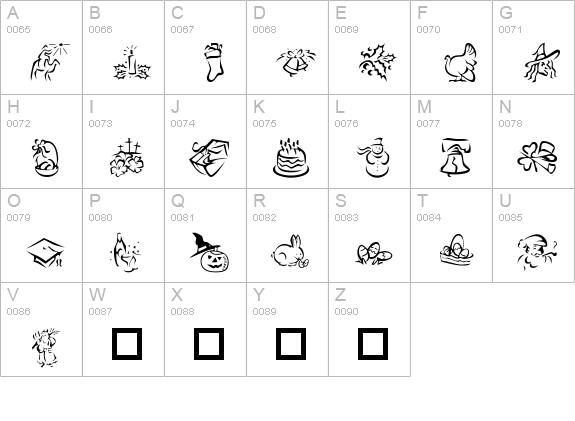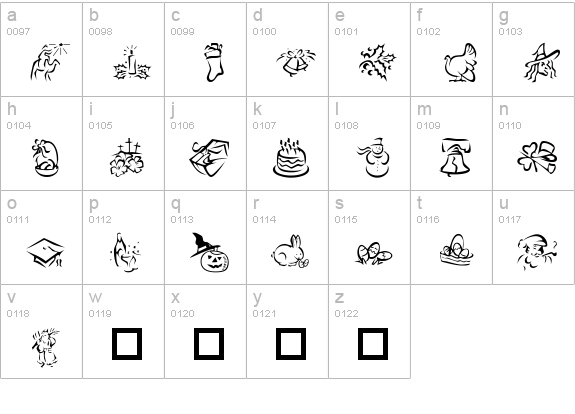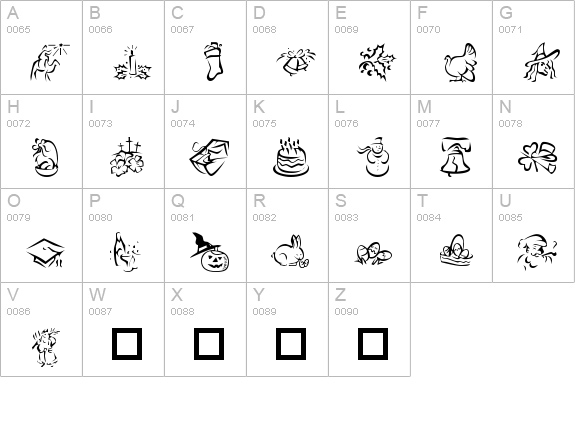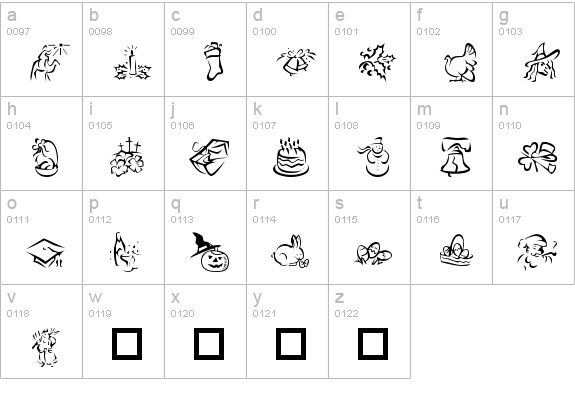
KR Pick A Holiday 2 Font Details
Introducing KR Pick A Holiday 2 font - a whimsical and playful typeface perfect for all your festive design needs. This font exudes a joyful and celebratory vibe, making it ideal for holiday-themed projects, greeting cards, invitations, and more. KR Pick A Holiday 2 font features a unique hand-drawn style with charming details that will add a touch of cheer to any design. With its versatile and eye-catching look, this font is sure to make your creations stand out. Best of all, KR Pick A Holiday 2 font is available for free download at FontsMarket.com. This means you can easily access and use this delightful font in your projects without any cost. Don't miss out on this wonderful opportunity to add a festive flair to your designs with KR Pick A Holiday 2 font!